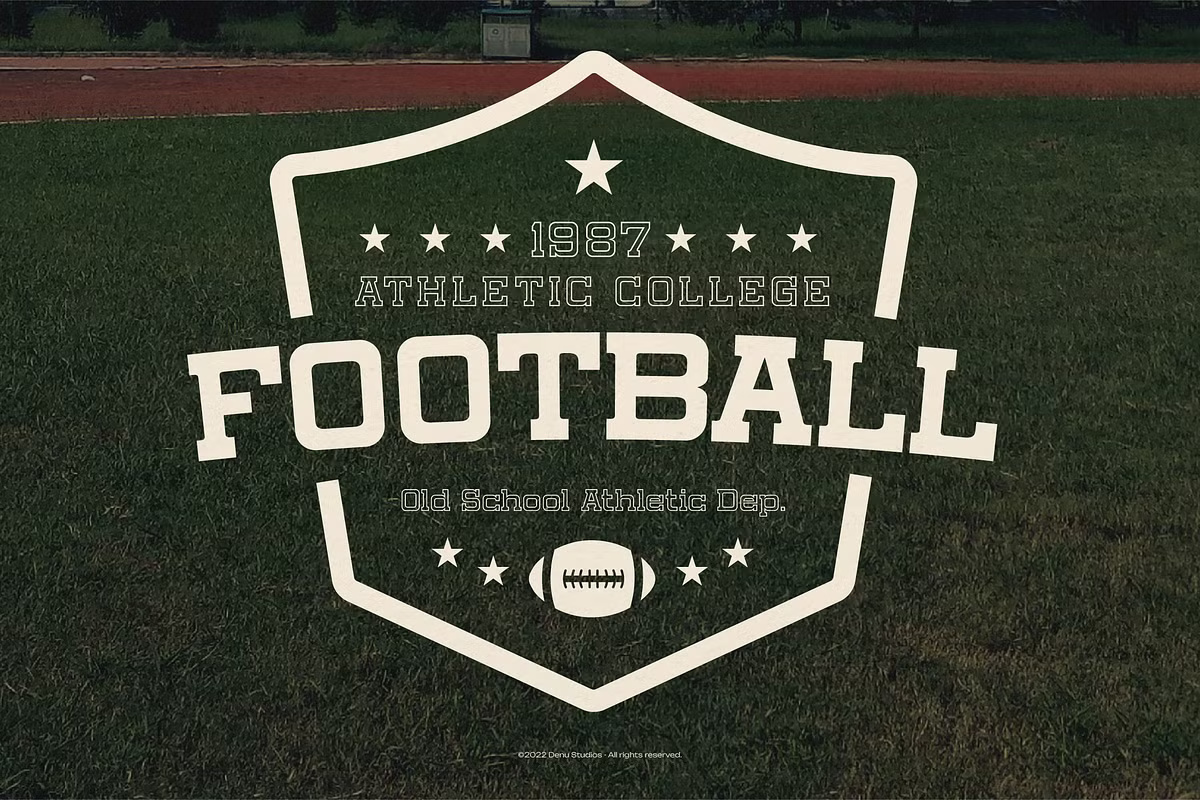
Roaring Tribune Font
Roaring Tribune is a bold, varsity-style slab serif font, perfect for adding a strong and sporty feel to your designs. Whether you’re working on branding projects, homeware designs, product packaging, logos, quotes, posters, shopping bags, t-shirts, book covers, business cards, invitations, greeting cards, labels, photography, special events, or any other creative project, Roaring Tribune will make your work stand out.
Roaring Tribune Slab Serif Font